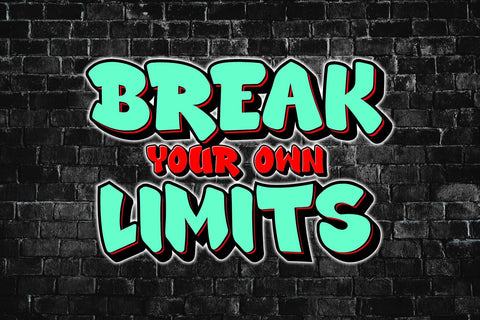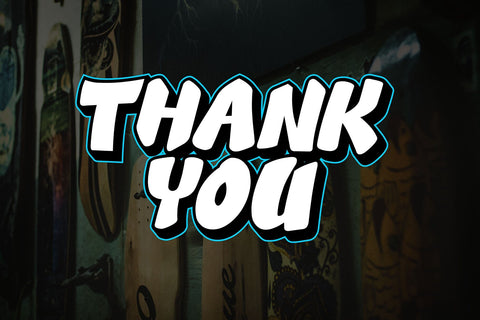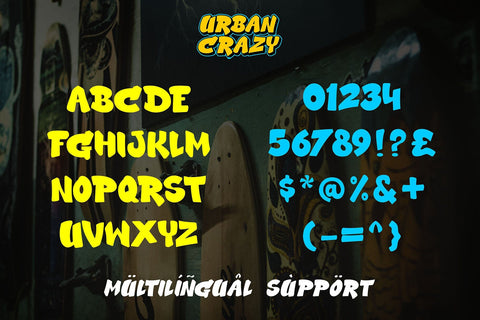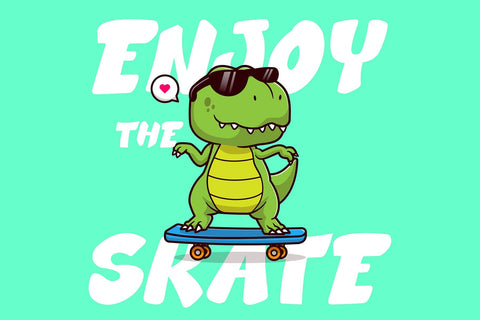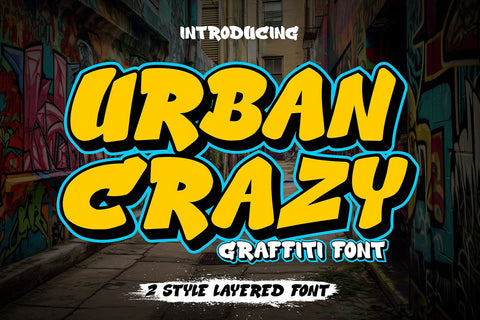
Urban Crazy - 3d Layered Graffiti Font
"Urban Crazy" is a graffiti font that contains several different styles and layers within it. When these styles and layers are properly combined in a design, they can create a three-dimensional (3D) effect on the text. Fonts like this are often used in street art, posters, and other designs that aim to add dimension and depth to their typography.
- Graffiti Characters looks